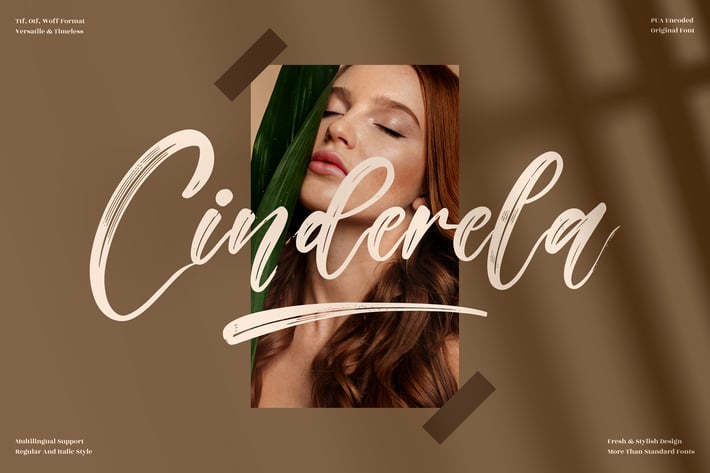
Cinderela Brush Font
Cinderela Brush Font is a modern handwritten brush script designed to bring elegance, softness, and expressive movement to your designs. With its smooth textured strokes, flowing forms, and naturally stylish character, this typeface delivers a premium handcrafted look — perfect for projects that need a refined yet artistic touch.
Modern brush script style with natural texture
Smooth, flowing strokes for an elegant handwritten feel
Organic letterforms with a stylish handcrafted look
Includes Regular style
Ideal for both digital and printed creative work
Beauty, fashion, and lifestyle branding
Wedding invitations & elegant stationery
Social media posts, quotes, and aesthetic content
Product labels & packaging
Photography overlays
Business cards with a soft premium style
Feminine and minimalist creative projects
Elegant, expressive, and naturally smooth — Cinderela Brush Font brings handcrafted beauty to every design.